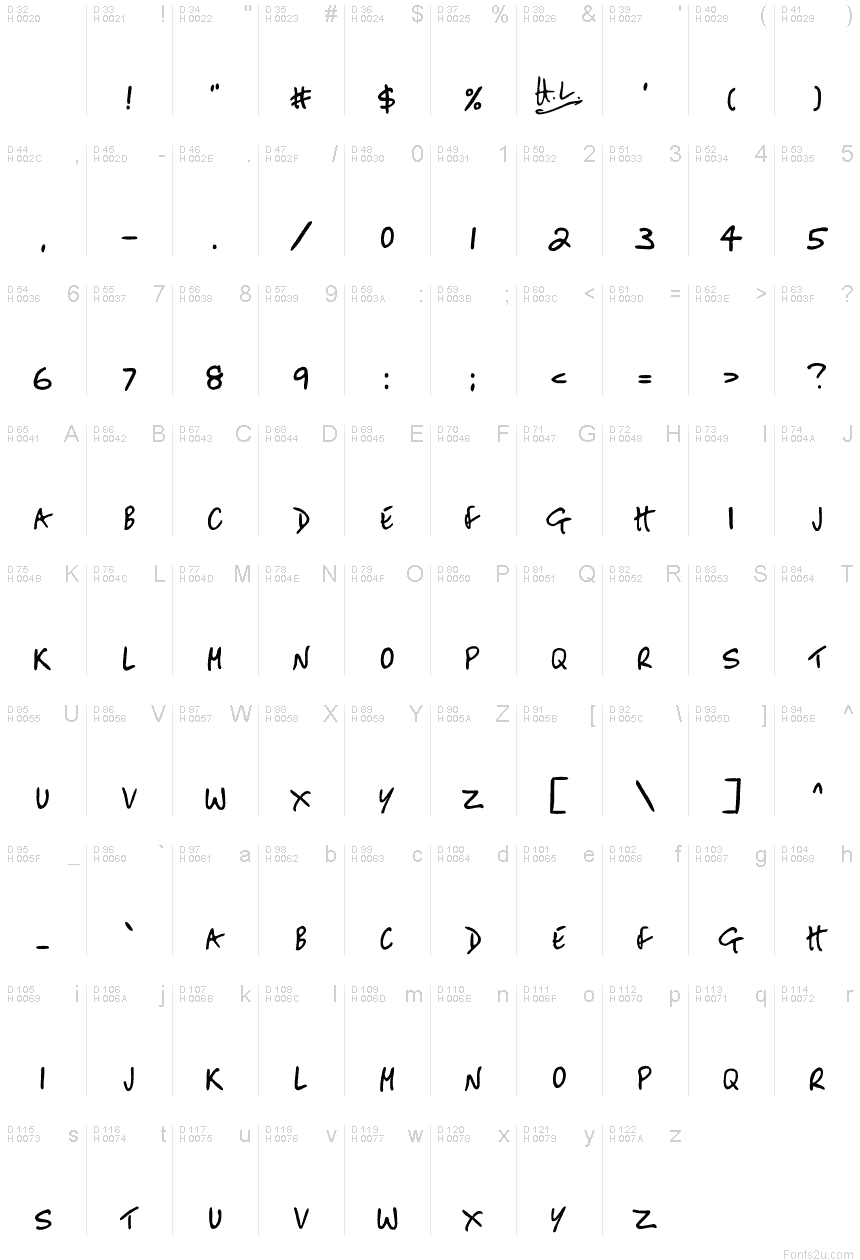
Whiteboard, designed by Corien Bennink, is a free handwritten display font with the quick motion of broad marker lettering. Its strokes shift in width and end in blunt, slightly uneven tips. Tall letters, open joins, and occasional sweeping cross-strokes keep the writing lively and unpolished.
Creative studios, music projects, and youth events suit its informal, hands-on character. It can turn poster titles into part of the artwork, and its marker-drawn shapes also fit merchandise and packaging built around doodles, sketches, or other hand-rendered graphics.